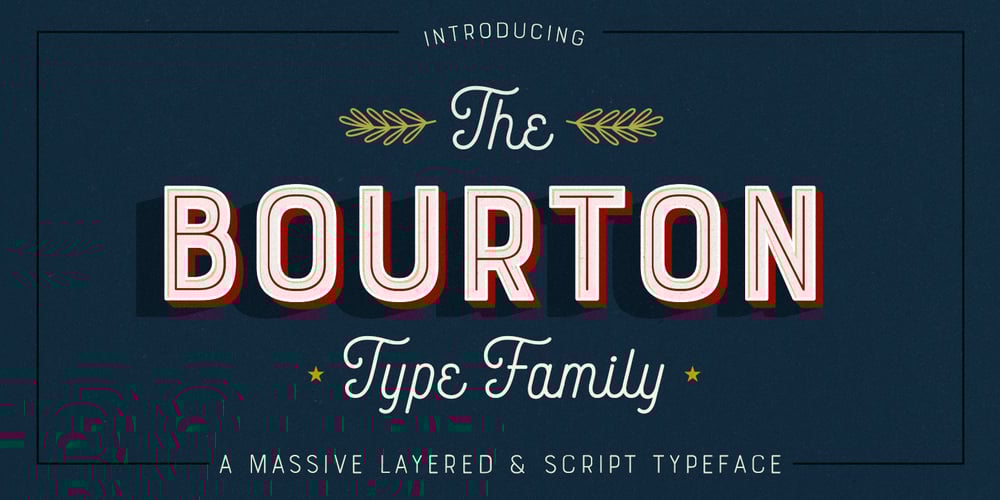
Bourton Font Family was designed by Kimmy Kirkwood and published by Kimmy Design. Bourton contains 34 styles and family package options. Bourton is the sans-serif cousin to Burford. In addition to a new look, it boasts more layering options, stylistic alternatives, graphic extras and even comes with its own script font! For a hand-drawn look, check out Bourton Hand Okay… so here’s everything you get with Bourton! Bourton Layering Fonts • 6 Base Layer Fonts (Base, Inline, Marquee, Stripes A, Stripes B, Stripes C) • 6 Top Layer Fonts (Base Drop, Dots, Line Light, Outline Medium, Outline Bold) • 6 Extrude Fonts (Extrude, Outline, Shade A, Shade B, Shade C, Shadow) • 5 Drop Shadow Fonts + 5 solo styles (Drop Shadow, Drop Extrude, Drop Line, Drop Stripes A, Drop Stripes B) • 2 Line Fonts for secondary text (Line Medium, Line Bold) Bourton Script • Light • Bold Bourton Extras Ornaments, banners, frames, borders, flags and line break (OTF, EPS, AI with User Guide for OTS) Flourishes (OTF, EPS, AI with User Guide for OTS). Happy Creating!